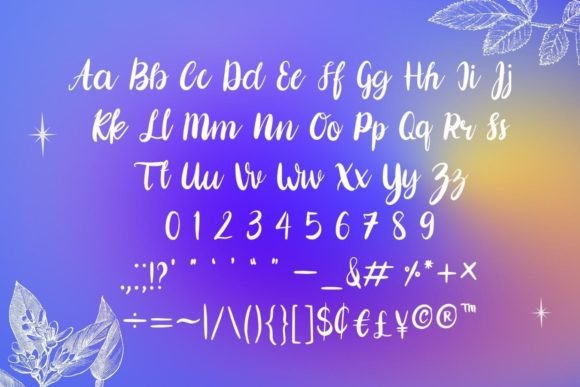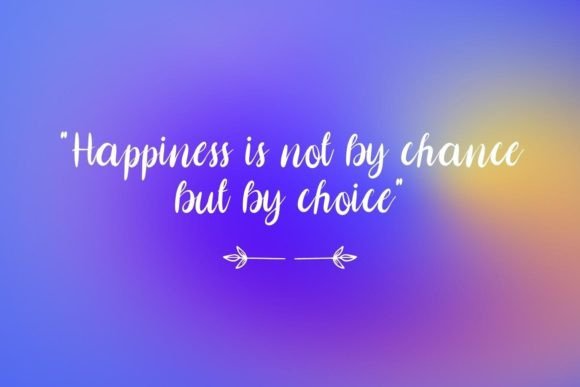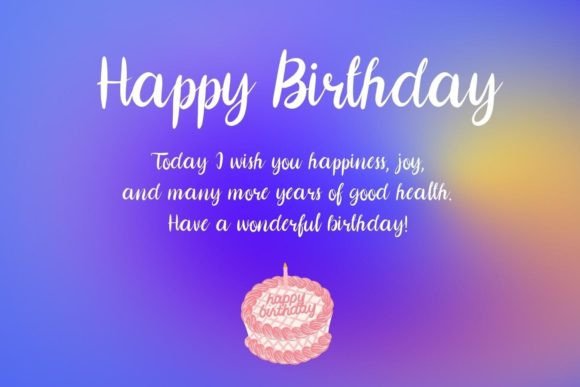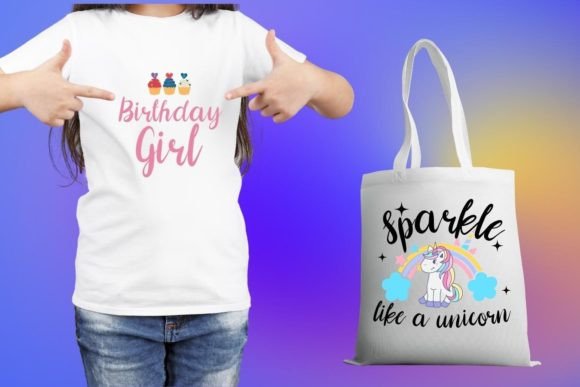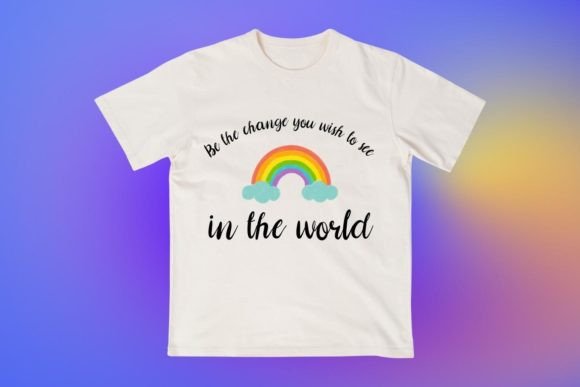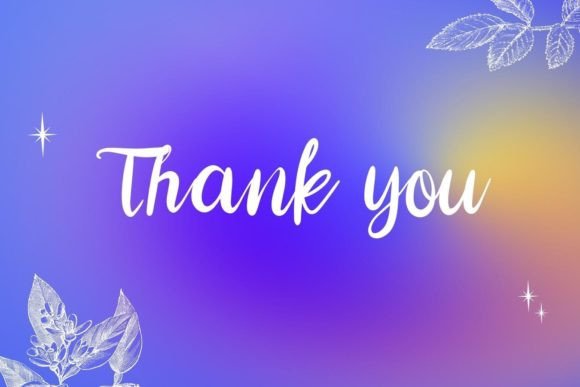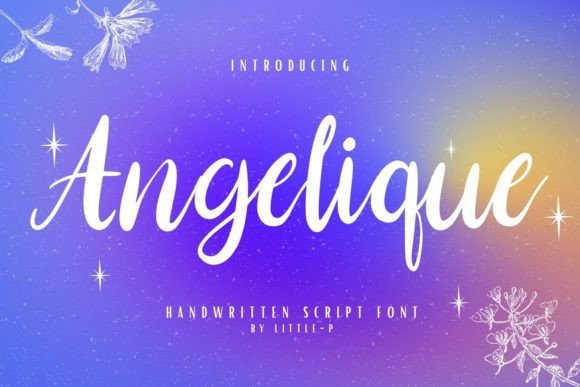
The Elegance of Angelique: Elevating Your Designs with Sophistication
I’ll never forget the time I was working on a wedding invitation project, and my client asked for a font that exuded elegance and sophistication. I scoured the internet, tried out countless fonts, but nothing seemed quite right. That was until I stumbled upon Angelique. This beautiful font has since become my go-to for special occasions, and I’m excited to share its charm with you.
A Personal Review of Angelique
- ✨ Elegant and refined, perfect for high-end designs
- 💫 Beautifully crafted with intricate details
- 🎨 Versatile and suitable for various design projects
While Angelique is an exceptional font, there are a few minor things to keep in mind:
- 🤔 May not be the best choice for body text due to its ornate nature
- ⚠️ Some characters may not work well at very small sizes
- Make the most of OpenType features, such as glyphs and stylistic alternates, to add variety to your text
Exploring OpenType Features
One of the standout features of Angelique is its OpenType capabilities. With access to a wide range of glyphs and stylistic alternates, you can add a personal touch to your designs. Experiment with different variations to find the perfect look for your project.
The Story Behind Angelique
Angelique was designed by a talented typographer who sought to create a font that embodied the elegance and sophistication of high-end design. Inspired by classic calligraphy and ornate scripts, Angelique was crafted to add a touch of luxury to any project.
Q: What type of projects is Angelique best suited for?
Angelique is perfect for special occasions, such as wedding invitations, thank you cards, and greeting cards. It’s also suitable for logos, business cards, and other professional designs.
Q: Can I use Angelique for body text?
While Angelique is highly legible, its ornate nature makes it better suited for headings and titles. For body text, consider a simpler font for improved readability.
Q: Does Angelique support OpenType features?
Yes, Angelique supports OpenType features, including glyphs and stylistic alternates. Experiment with these features to add variety to your text.